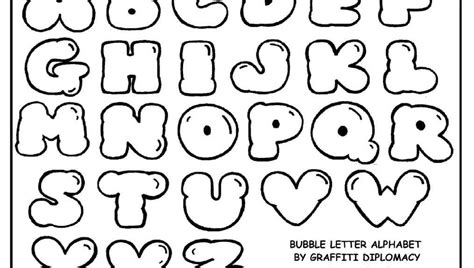
Readers, have you ever wanted to add a touch of whimsy and personality to your designs? Maybe you've dreamt of creating eye-catching invitations, crafting unique social media graphics, or adding a playful flair to your website. If so, you're not alone. Many designers and creatives are exploring the world of bubble letters, and for good reason! They're visually appealing, versatile, and add a fun, playful touch to any project. This is where bubble letters come in, adding a distinct charm and a touch of personality to your designs. I've been researching and analyzing bubble letters for years, and I'm excited to share my insights with you. In this article, we’ll explore the wonderful world of bubble letters, exploring techniques for creating them and how to use them effectively in your designs.
What Are Bubble Letters?
Bubble letters, sometimes called "balloon letters" or "puffy letters," are a playful font style where letters are designed to resemble inflated balloons or bubbles. They're characterized by their rounded shapes, often with a slight curve or bulge in the center. Bubble letters are loved for their friendly and whimsical appearance, adding a touch of fun and playfulness to anything they adorn.
Why Choose Bubble Letters?
Bubble letters are a versatile font style that can be applied to a wide range of creative projects. They're perfect for:
- Adding a playful touch to invitations and greeting cards: Bubble letters can transform a simple invitation into a joyful and memorable one.
- Creating eye-catching social media graphics: Make your posts stand out from the crowd with bubble letters for headers, captions, or promotional graphics.
- Enhancing website designs: Bubble letters can add a touch of personality to your website's headings, call-to-actions, and website elements.
- Designing unique logos and branding: Bubble letters can create a memorable and playful logo that reflects your brand's personality.
- Creating fun and engaging educational materials: Make learning more enjoyable for children and adults alike with bubble letters in educational materials.
Creating Bubble Letters: Techniques and Tools
The beauty of bubble letters is that they can be created using a variety of techniques and tools. Here's a breakdown of some popular methods to get you started:
Freehand Drawing
The traditional and most creative way to create bubble letters is by hand. Grab your favorite pen or pencil and a piece of paper, and let your imagination run wild! This is a great way to personalize your bubble letters and make them truly unique.
- Start with a basic outline: Begin by lightly sketching the letter's outline in pencil. Make sure the outline is rounded and slightly curvy.
- Add the "bubble" effect: Once you have your outline, start adding the "bubble" effect by rounding out the edges and adding slight bulges in the center.
- Practice different styles: Experiment with different thicknesses of lines and varying levels of "bubble-ness" to find a style you love.
Digital Tools
If you're looking for a more professional or convenient way to create bubble letters, digital tools are your best friend. There are many software programs and online apps that can help you create stunning bubble letters, from simple text editors to powerful design programs. Here are a few popular options:
- Adobe Photoshop: A powerful design program that offers a wide range of tools for creating custom bubble letters. You can use Photoshop's brush tools, layers, and effects to create unique and intricate bubble letter designs.
- Canva: A user-friendly online design platform that offers pre-made templates for creating bubble letters in a variety of styles. Canva's drag-and-drop interface makes it easy to create bubble letter designs even if you're a beginner.
- Google Docs: If you're looking for a quick and easy way to create bubble letters, Google Docs can be a great option. While it doesn't offer as many customization options as dedicated design programs, you can use basic text formatting tools to create simple bubble letters.
- Online bubble letter generators: Several online generators allow you to create bubble letters by simply typing in your text and selecting a style. These generators are a great way to get quick and easy bubble letter designs, but you'll have less control over the final result.
Tips for Designing Effective Bubble Letters
Creating bubble letters is fun, but mastering the art of designing effective bubble letters takes a little practice. Keep these tips in mind to create eye-catching and readable bubble letter designs:
- Balance Playfulness and Readability: While bubble letters are playful, it's crucial to ensure they're still legible. Avoid excessive bloating or overly complex shapes that make it difficult to read the letters.
- Choose the Right Font Weight: Thinner font weights can still be playful while maintaining readability. Avoid very thick font weights that can make the letters appear too bulky and less appealing.
- Consider Letter Spacing: The space between letters is crucial in bubble letters. If the letters are too close together, they can become cramped and difficult to read. If the letters are too far apart, the words can appear disjointed.
- Experiment with Colors: Use bright and vibrant colors to make your bubble letters pop. You can also play with pastels and gradients to create a softer, more elegant look.
- Add Shadows or Outlines: Adding a subtle shadow or outline can help make your bubble letters stand out and add depth to your design.
Bubble Letter Fonts: A Quick Guide
If you prefer using pre-made fonts, there are many bubble letter fonts available online. These fonts can save you time and effort, especially for projects that require a specific aesthetic.
- Comic Sans: A classic bubble letter font known for its playful and informal appearance.
- Chalkboard: A bubble letter font that gives a handwritten feel, making it perfect for projects with a vintage or rustic touch.
- Bubblegum: A sweet and vibrant bubble letter font with a fun, whimsical feel.
- Bouncy: A font that lives up to its name, with an energetic and playful style that adds a bouncy feel to your designs.
- Jelly Bean: A bubbly font with a playful and friendly aesthetic, perfect for adding a pop of color to your designs.
Using Bubble Letters Effectively in Your Designs
Now that you know how to create bubble letters, you're ready to unleash your creativity. Here's how to use them effectively in your designs:
Headers & Titles
Bubble letters shine in headers and titles as they draw attention and add a fun touch to your designs. Use them for:
- Website headings: Add a playful and memorable element to your website's headers.
- Social media post titles: Make your posts stand out on social media with eye-catching bubble letter titles.
- Invitations and flyers: Use bubble letters for the main title of your invitations or flyers to create a whimsical and appealing look.
Logos & Branding
Bubble letters can be an excellent choice for logos and branding, especially for businesses that want to convey a fun and playful personality. Consider using them for:
- Company logos: Create a memorable and friendly logo that reflects your brand's values.
- Product packaging: Add a whimsical touch to your product packaging with bubble letter branding.
- Social media branding: Use bubble letters consistently across your social media platforms to create a playful and recognizable brand identity.
Illustrations & Graphics
Bubble letters can be incorporated into illustrations and graphics, adding a unique and personalized touch to your designs. Here are some ways to use them:
- Create custom illustrations: Use bubble letters as elements within your illustrations, adding a playful and whimsical feel.
- Design greeting cards and posters: Add a fun and personal touch to your greeting cards and posters with bubble letter illustrations.
FAQ: Bubble Letters
What are the best tools for creating bubble letters?
The best tool for creating bubble letters depends on your needs and skill level. If you prefer a traditional approach, freehand drawing with a pen or pencil is a great option. For more professional results, digital tools like Adobe Photoshop or Canva are excellent choices. Online bubble letter generators are a quick and easy solution for basic bubble letter designs.
Can bubble letters be used for formal occasions?
While bubble letters are often associated with fun and playfulness, they can be used for formal occasions as well. The key is to choose the right font style, color, and design to match the formality of the event. For example, you could use a more elegant bubble letter font in a subtle color for a wedding invitation or a business presentation.
What are some tips for making bubble letters legible?
To ensure your bubble letters are readable, avoid excessive bloating or overly complex shapes. Choose a font weight that balances playfulness with readability. Pay attention to letter spacing, ensuring letters are not too close together or too far apart. Consider adding shadows or outlines to help enhance their visibility.
So, there you have it! The key to success with bubble letters is to embrace creativity and experiment with different techniques, fonts, and designs. Whether you're a seasoned designer or a beginner, there's a world of potential for bubble letters to add a touch of fun and personality to your creative projects. Now that you've explored the ins and outs of bubble letters, it's time to put your newfound knowledge into practice!